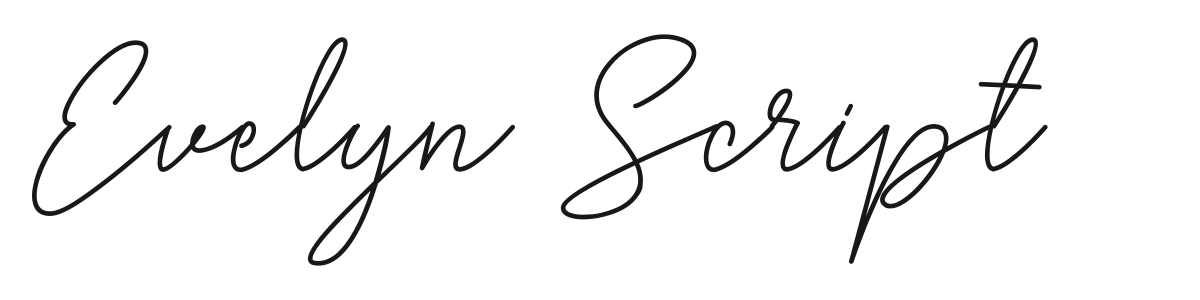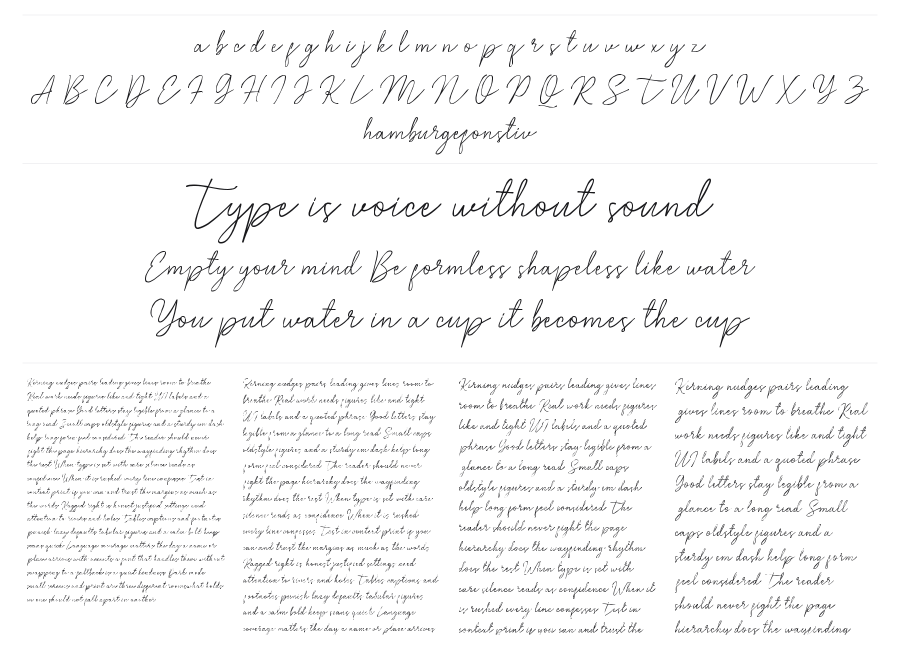
Evelyn Script
Evelyn Script is a slender, flowing cursive with graceful looped connections and a near-monoline stroke. The letters drift across a gently undulating baseline, giving the whole thing a relaxed, hand-penned character without feeling sloppy. It sits naturally in wedding stationery, boutique branding, and anywhere a light romantic touch is needed.